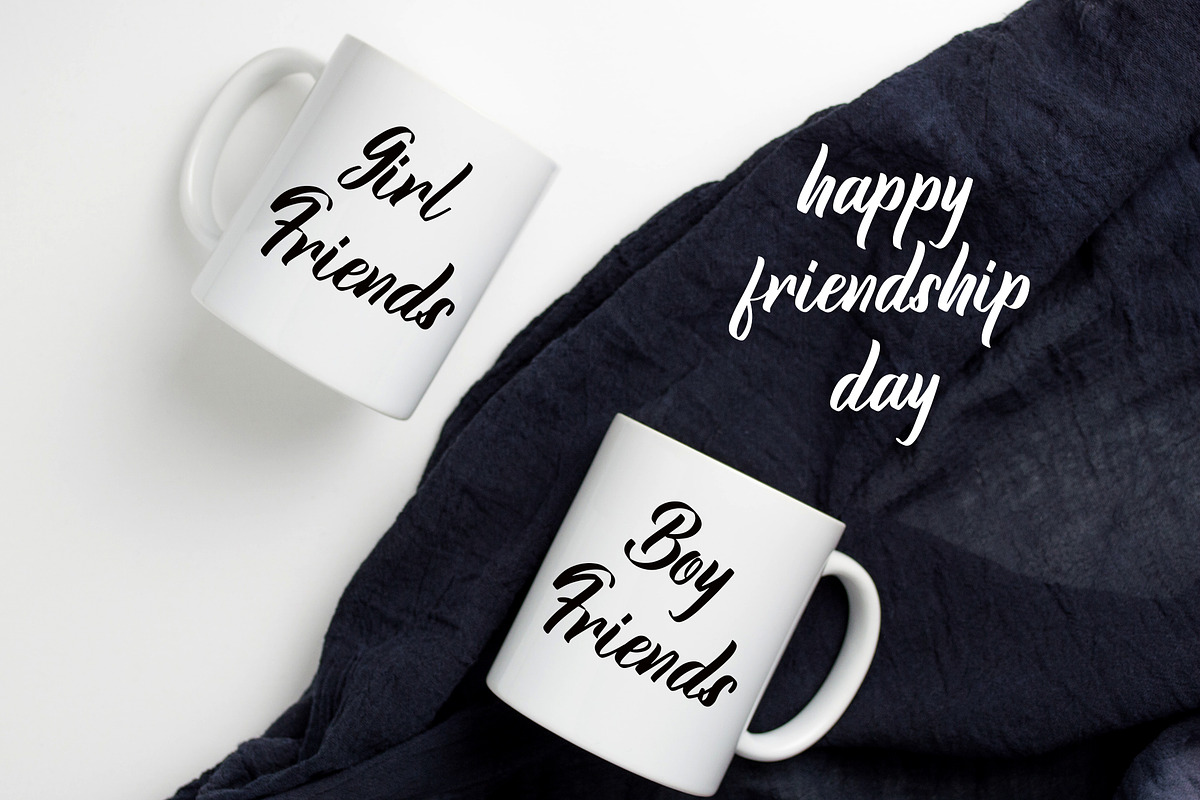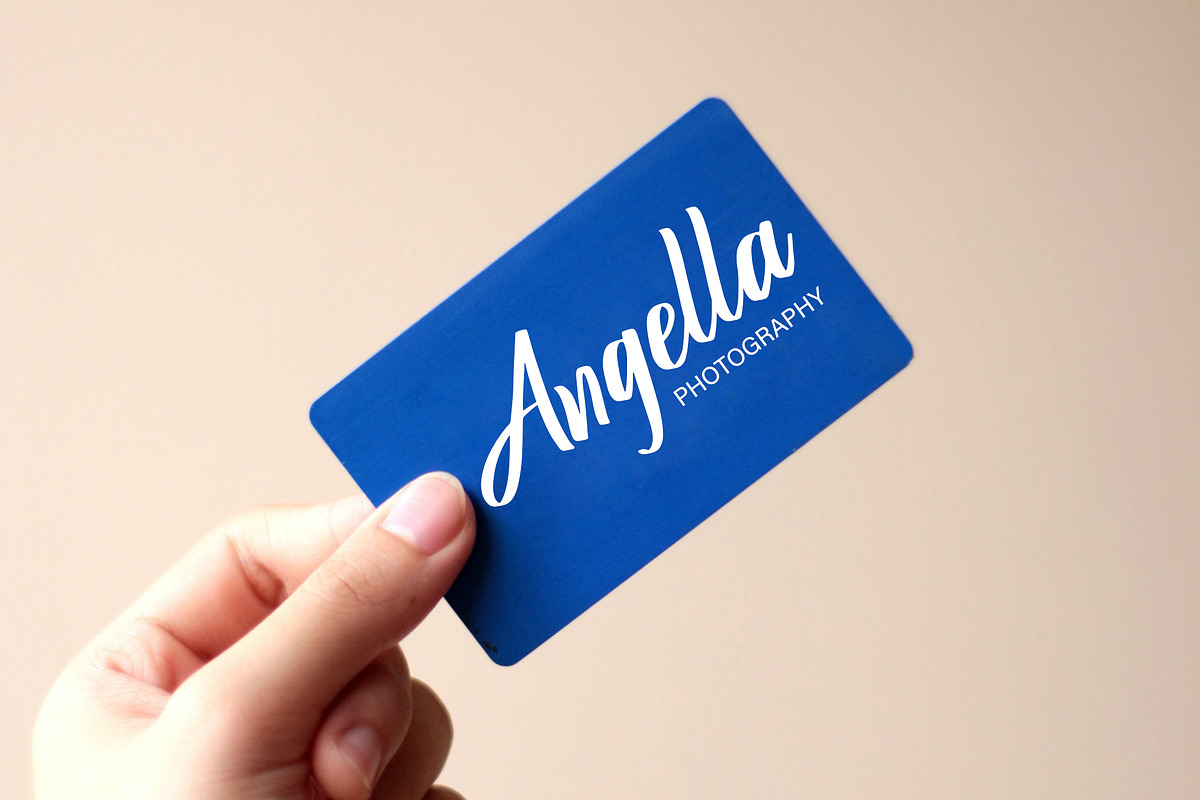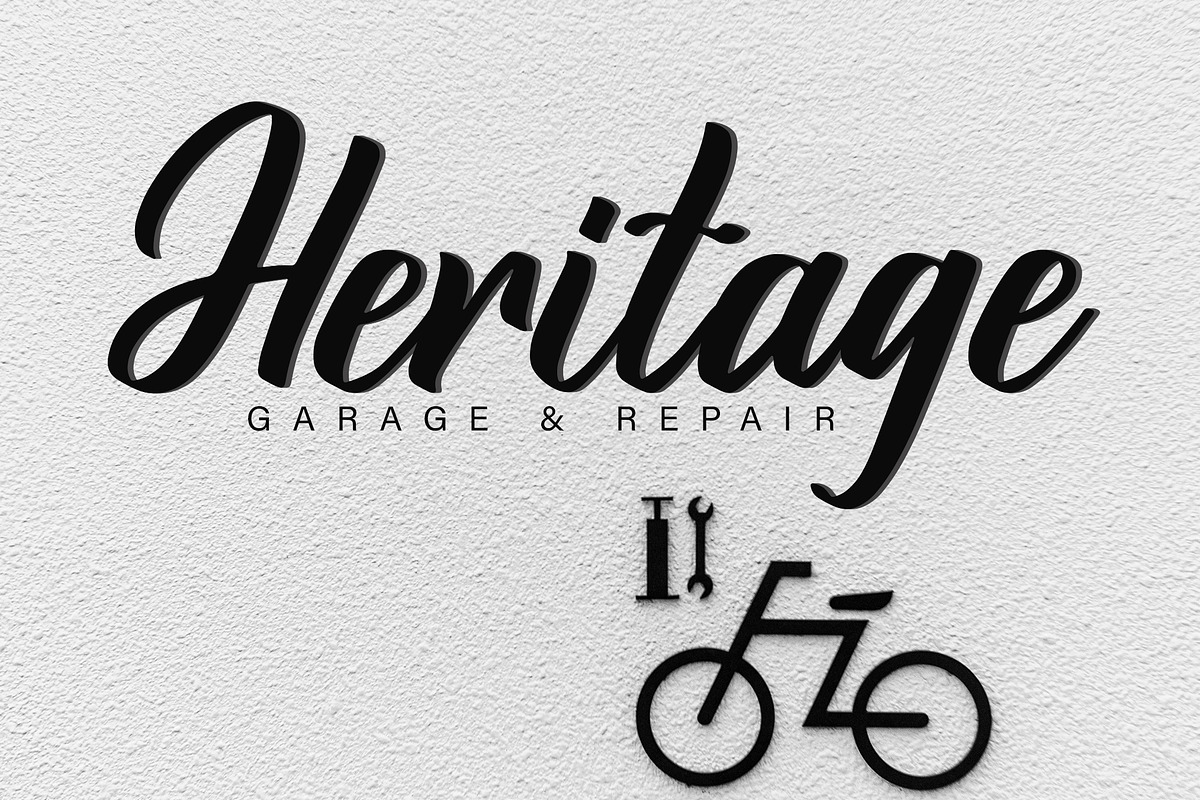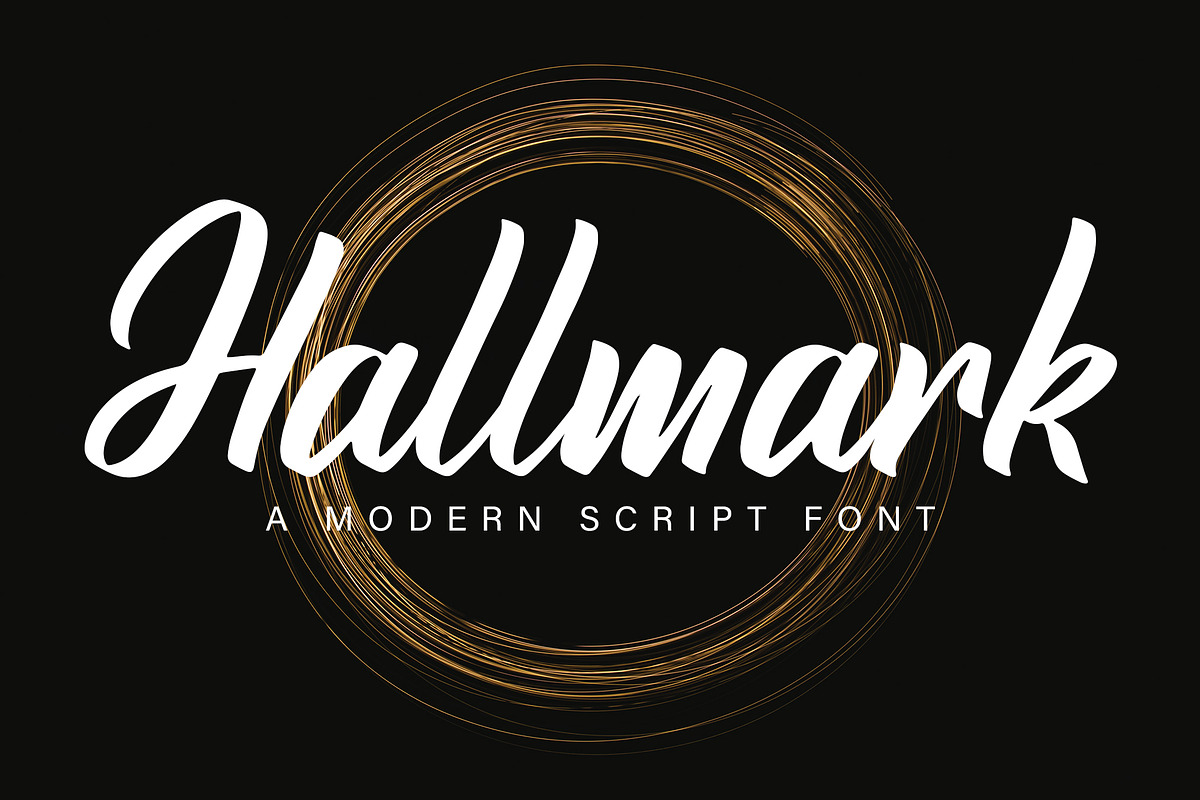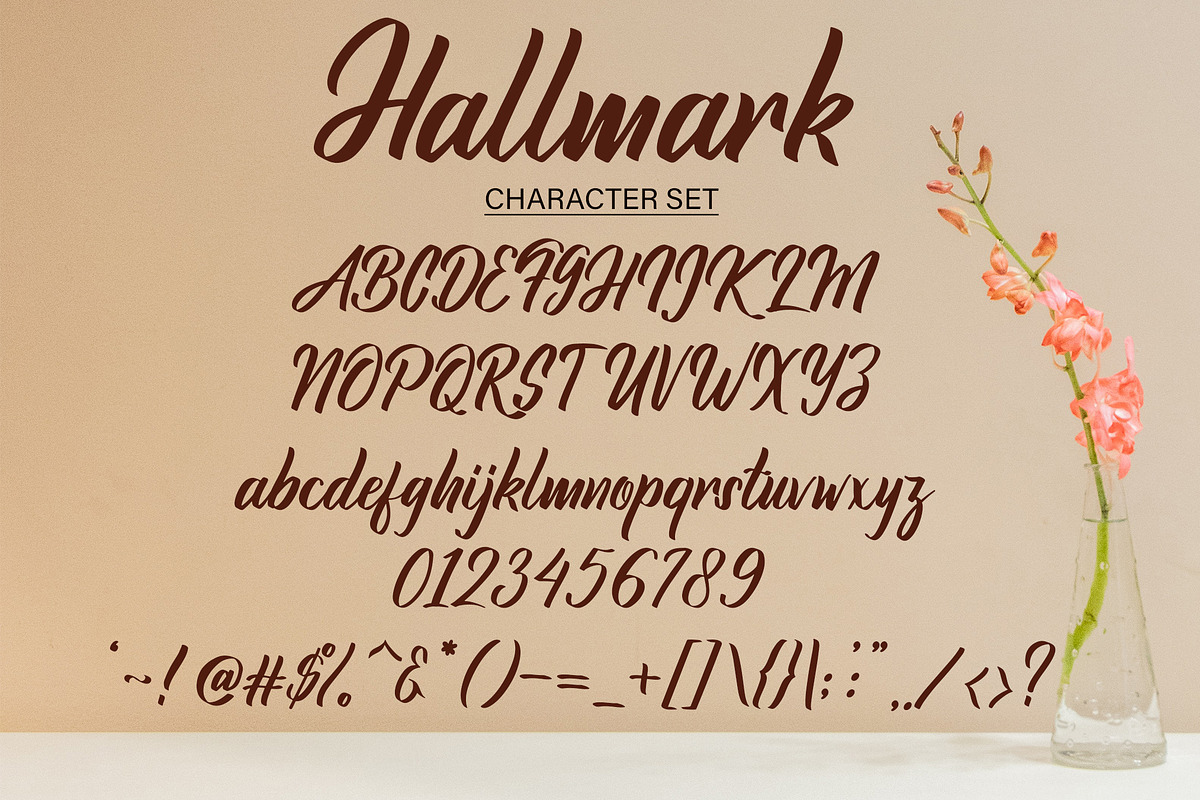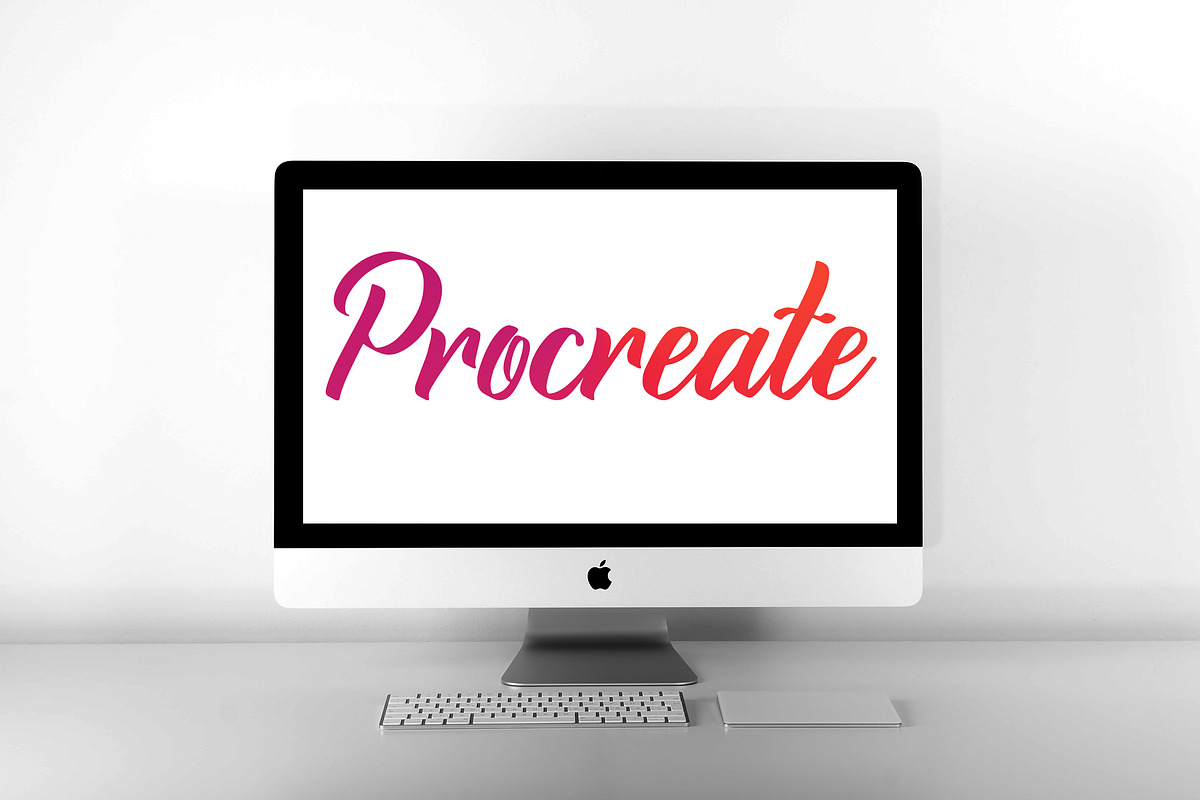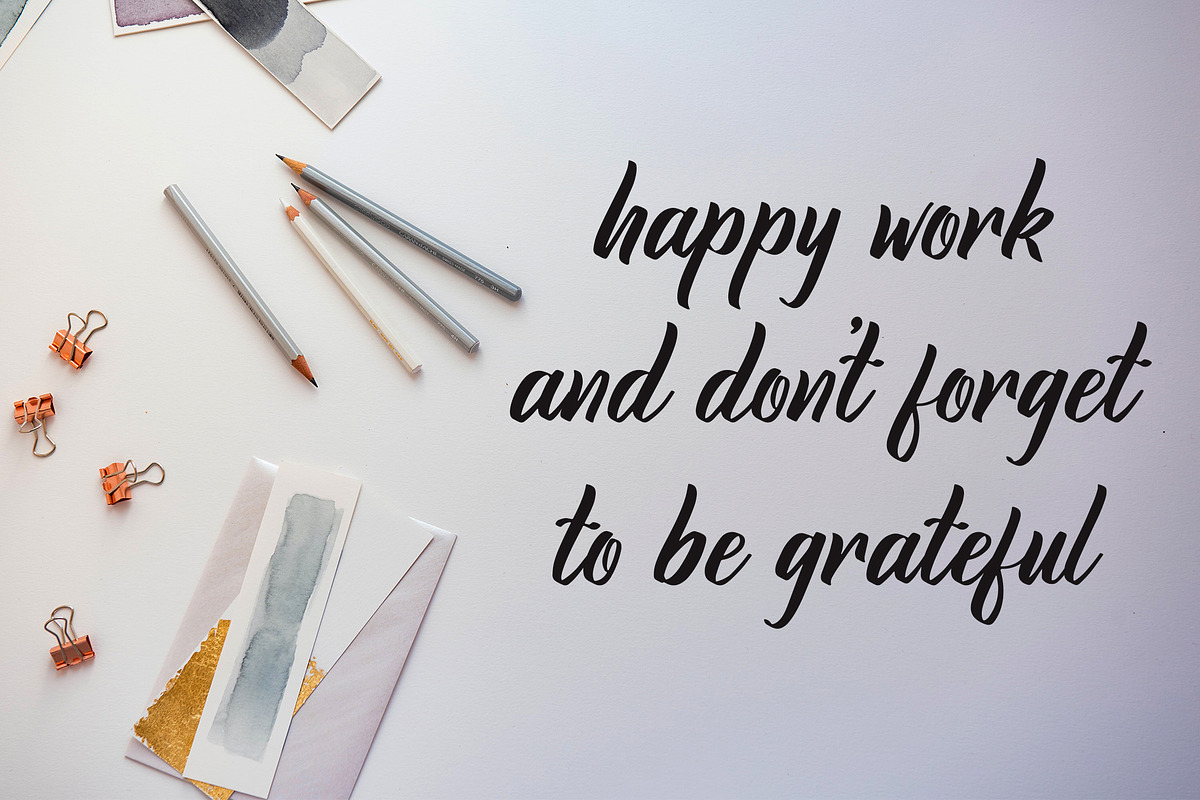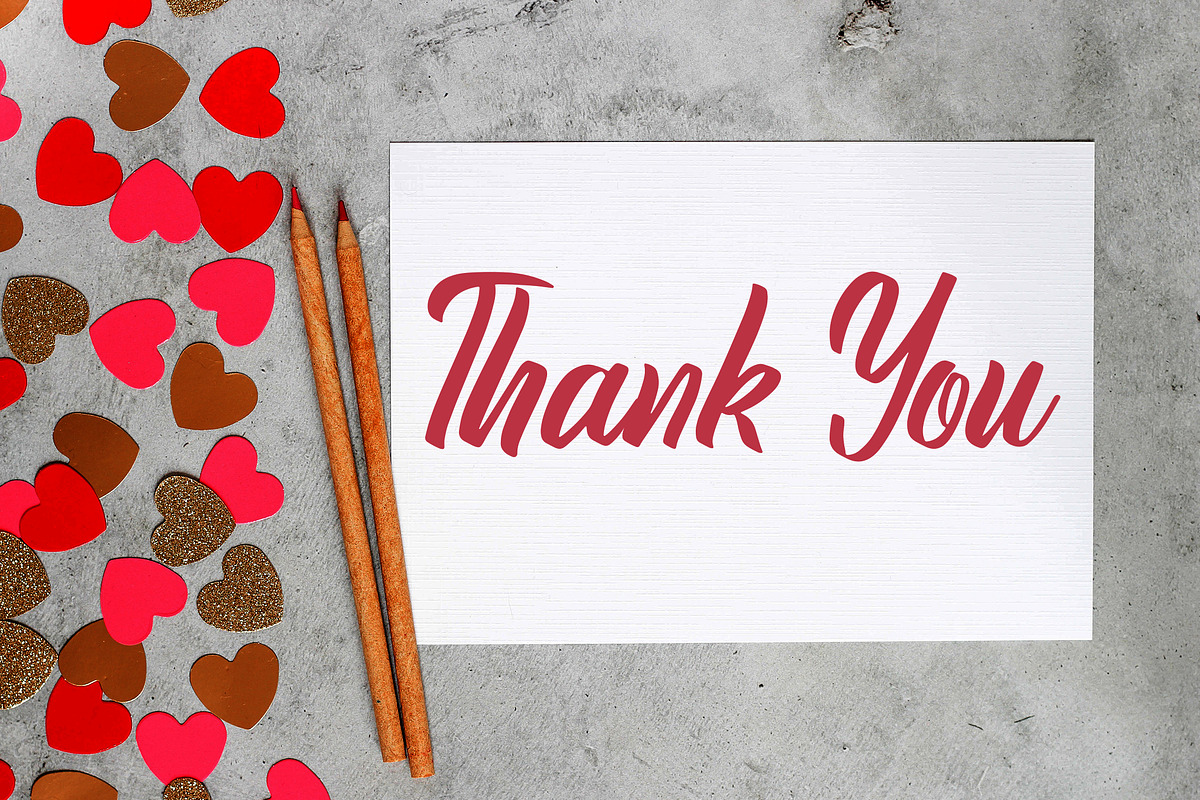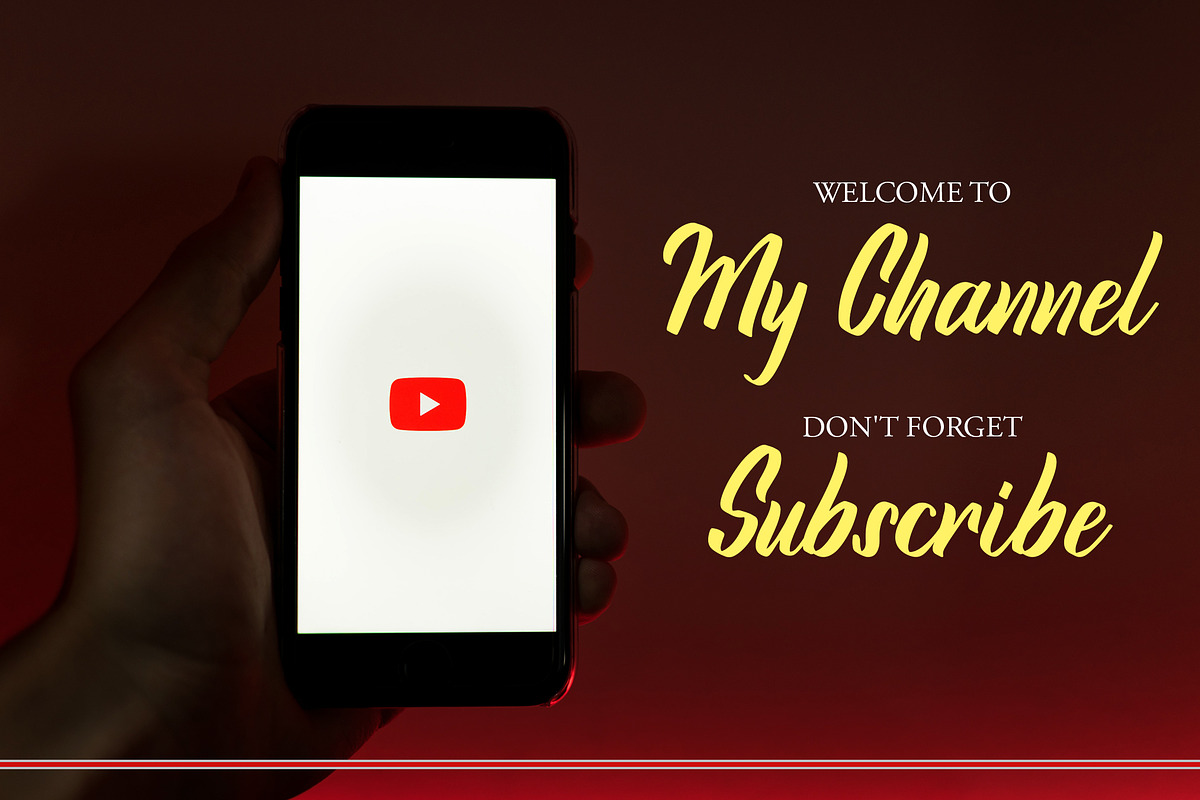
hallmark
Hallmark is an exquisite handwritten font, masterfully designed to become a true favorite. It maintains its classy calligraphic influences while feeling contemporary and fresh. Fall in love with it and bring your projects to the highest levels!